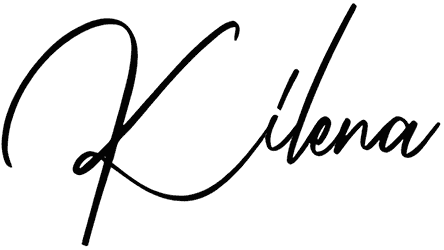
You can revolutionize all your artwork by leaving your safe zone and utilizing a wonderful script font such as Kilena, which comes with elongated and crooked characters. The shining clue about this calligraphy font is that it is capable of adding a personalized touch and a vibe of delicacy or softness to your diplomas, greeting cards, headlines, or web pages.